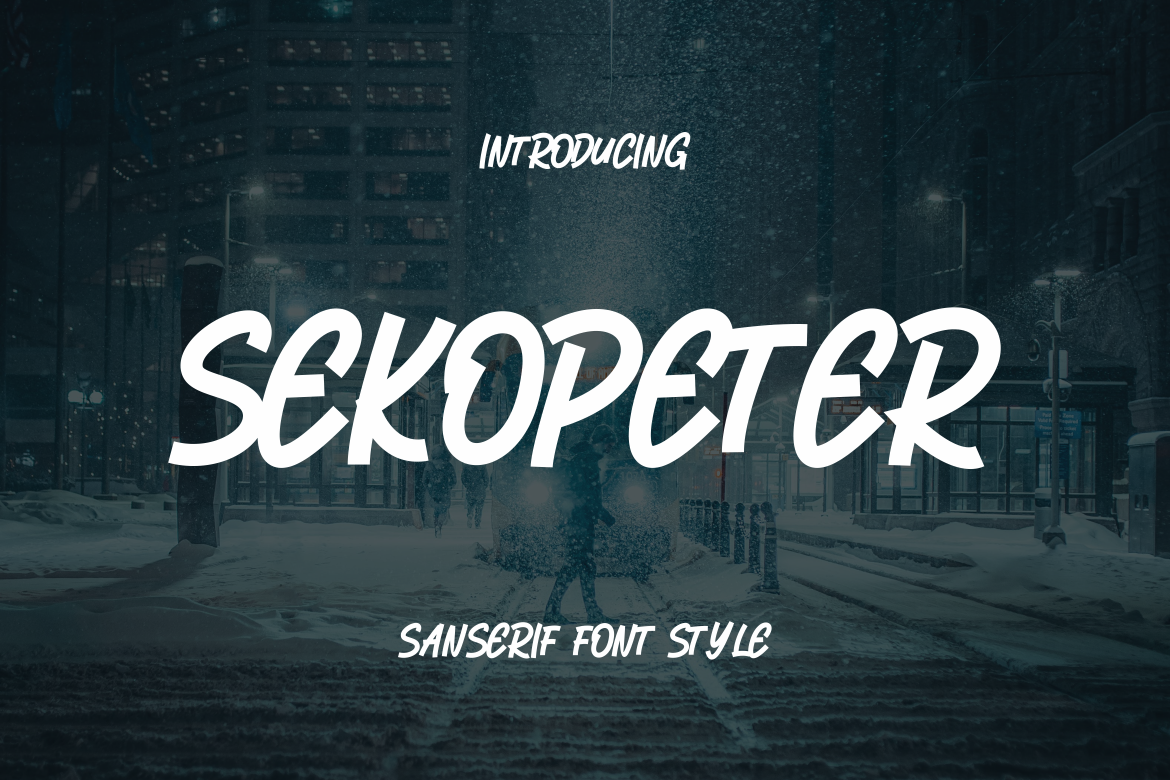
Sekopeter Sanserif Font .
Sekopeter Sanserif Font – Handwriting Script Font is a Cute Handwriting typeface, perfectly suitable for creating quotes, Wedding Invitations, lifestyle designs such as logos, title, magazine, and more.